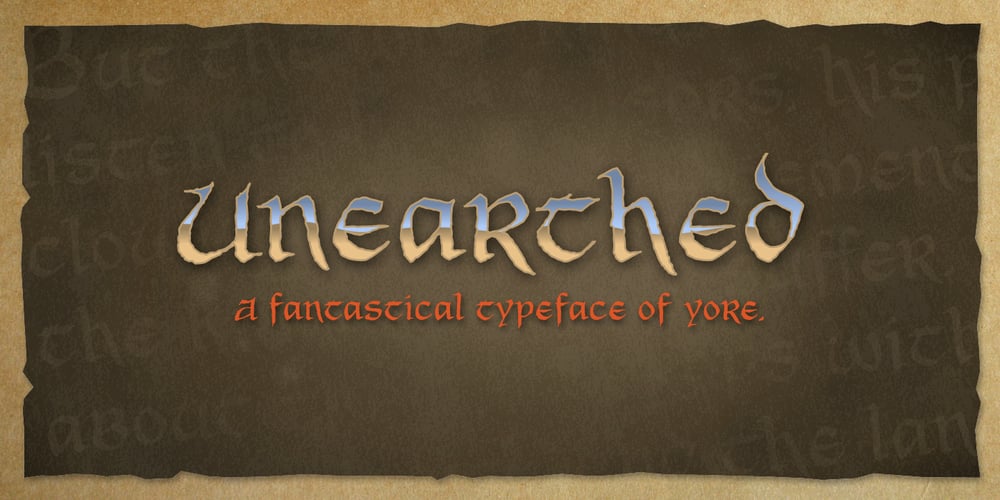
Unearthed BB
Unearthed BB font
Unearthed BB Font Family was designed by Nate Piekos and published by Blambot. Unearthed BB contains 1 styles and family package options. Unearthed BB is an unconventional uncial font for all your calligraphic and fantasy needs. It contains a large compliment of European characters and the opentype version contains autoligatures to swap out identical, adjacent characters A-Z, a-z, and 0-9, for a more hand lettered feel.